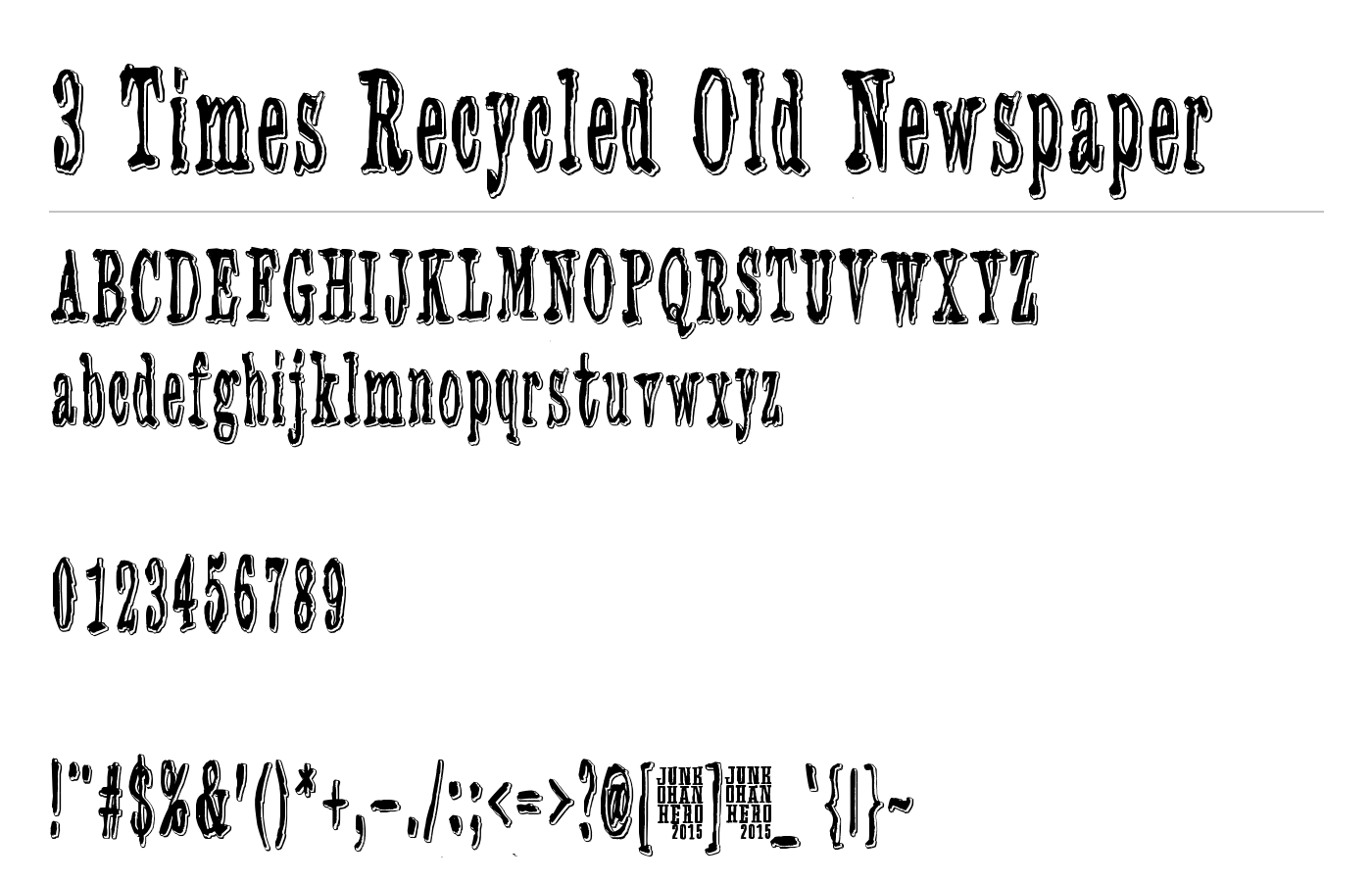
3 Times Recycled Old Newspaper is a distressed serif font with a vintage, worn-out look that evokes the feel of old printed newspapers. Its narrow, tall letterforms with rough edges create a nostalgic and rustic style, making it perfect for designs that want to convey a sense of history, authenticity, or retro charm. This font works well for posters, headlines, and packaging that aim to capture an old-fashioned, handcrafted aesthetic.
3 Times Recycled Old Newspaper Font
About 3 Times Recycled Old Newspaper Font
| Font family | 3 Times Recycled Old Newspaper Font |